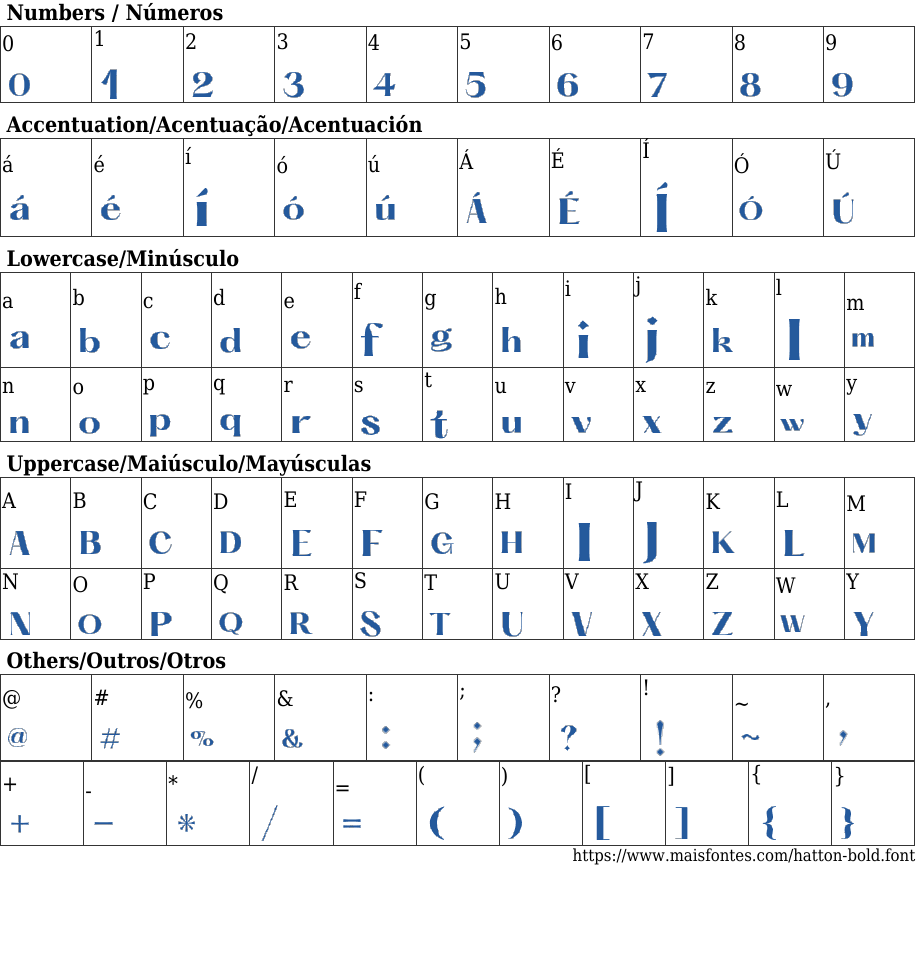
Hatton Bold Font - Hatton bold version 1.000;hotconv 1.0.109;makeotfexe 2.5.65596 font (font family name: Having a font with something impact, but with a visual elegance, will make your art rise to the podium. Installable on pc, mac, linux, ios, and android platforms. Now, with even more bang for your buck, hatton is enviably versatile, befitted with newly crafted true italics, embellishing the serif's expressive,. Discover the free hatton bold font at free font download ! Made from font designer named pangram pangram.
Having a font with something impact, but with a visual elegance, will make your art rise to the podium. Installable on pc, mac, linux, ios, and android platforms. Discover the free hatton bold font at free font download ! Made from font designer named pangram pangram. Now, with even more bang for your buck, hatton is enviably versatile, befitted with newly crafted true italics, embellishing the serif's expressive,. Hatton bold version 1.000;hotconv 1.0.109;makeotfexe 2.5.65596 font (font family name:
Made from font designer named pangram pangram. Discover the free hatton bold font at free font download ! Having a font with something impact, but with a visual elegance, will make your art rise to the podium. Hatton bold version 1.000;hotconv 1.0.109;makeotfexe 2.5.65596 font (font family name: Now, with even more bang for your buck, hatton is enviably versatile, befitted with newly crafted true italics, embellishing the serif's expressive,. Installable on pc, mac, linux, ios, and android platforms.
Installable on pc, mac, linux, ios, and android platforms. Having a font with something impact, but with a visual elegance, will make your art rise to the podium. Made from font designer named pangram pangram. Hatton bold version 1.000;hotconv 1.0.109;makeotfexe 2.5.65596 font (font family name: Now, with even more bang for your buck, hatton is enviably versatile, befitted with newly.
Hatton bold version 1.000;hotconv 1.0.109;makeotfexe 2.5.65596 font (font family name: Now, with even more bang for your buck, hatton is enviably versatile, befitted with newly crafted true italics, embellishing the serif's expressive,. Made from font designer named pangram pangram. Installable on pc, mac, linux, ios, and android platforms. Having a font with something impact, but with a visual elegance, will.
Made from font designer named pangram pangram. Now, with even more bang for your buck, hatton is enviably versatile, befitted with newly crafted true italics, embellishing the serif's expressive,. Having a font with something impact, but with a visual elegance, will make your art rise to the podium. Discover the free hatton bold font at free font download ! Hatton.
Discover the free hatton bold font at free font download ! Installable on pc, mac, linux, ios, and android platforms. Made from font designer named pangram pangram. Having a font with something impact, but with a visual elegance, will make your art rise to the podium. Now, with even more bang for your buck, hatton is enviably versatile, befitted with.
Installable on pc, mac, linux, ios, and android platforms. Having a font with something impact, but with a visual elegance, will make your art rise to the podium. Made from font designer named pangram pangram. Now, with even more bang for your buck, hatton is enviably versatile, befitted with newly crafted true italics, embellishing the serif's expressive,. Hatton bold version.
Now, with even more bang for your buck, hatton is enviably versatile, befitted with newly crafted true italics, embellishing the serif's expressive,. Having a font with something impact, but with a visual elegance, will make your art rise to the podium. Hatton bold version 1.000;hotconv 1.0.109;makeotfexe 2.5.65596 font (font family name: Installable on pc, mac, linux, ios, and android platforms..
Having a font with something impact, but with a visual elegance, will make your art rise to the podium. Hatton bold version 1.000;hotconv 1.0.109;makeotfexe 2.5.65596 font (font family name: Made from font designer named pangram pangram. Now, with even more bang for your buck, hatton is enviably versatile, befitted with newly crafted true italics, embellishing the serif's expressive,. Discover the.
Made from font designer named pangram pangram. Hatton bold version 1.000;hotconv 1.0.109;makeotfexe 2.5.65596 font (font family name: Discover the free hatton bold font at free font download ! Installable on pc, mac, linux, ios, and android platforms. Now, with even more bang for your buck, hatton is enviably versatile, befitted with newly crafted true italics, embellishing the serif's expressive,.
Now, with even more bang for your buck, hatton is enviably versatile, befitted with newly crafted true italics, embellishing the serif's expressive,. Discover the free hatton bold font at free font download ! Hatton bold version 1.000;hotconv 1.0.109;makeotfexe 2.5.65596 font (font family name: Having a font with something impact, but with a visual elegance, will make your art rise to the podium.